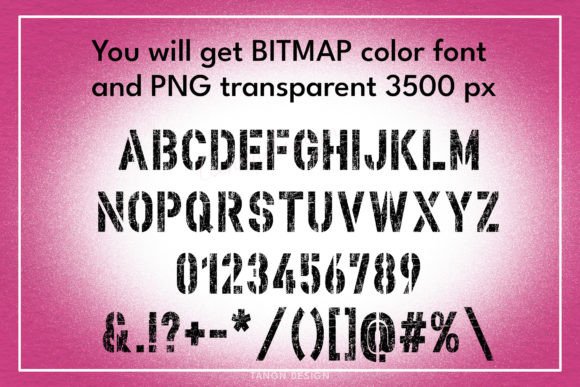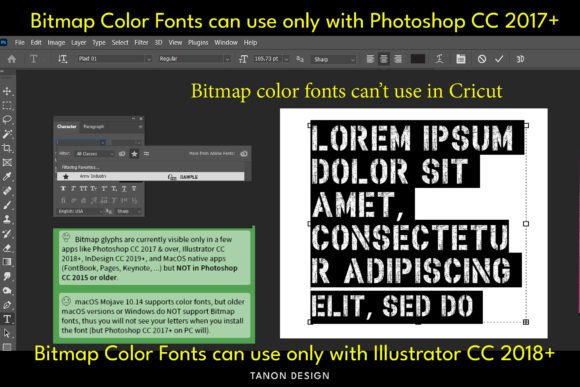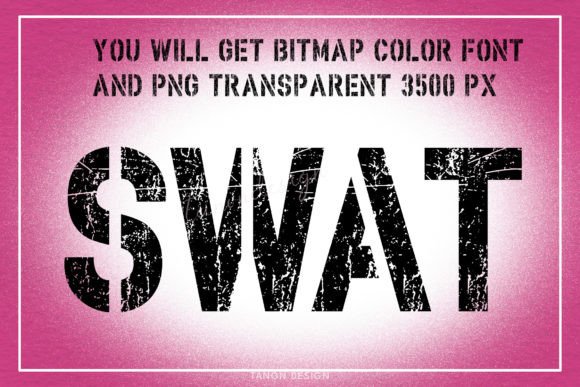
Army Industry Font
Introducing “Army Industry” fonts a beautiful distress grunge Bitmap Color font. It will look fantastic on all your project designs including t-shirt designs, mug designs, digital designs, crafts, cards, and any projects!